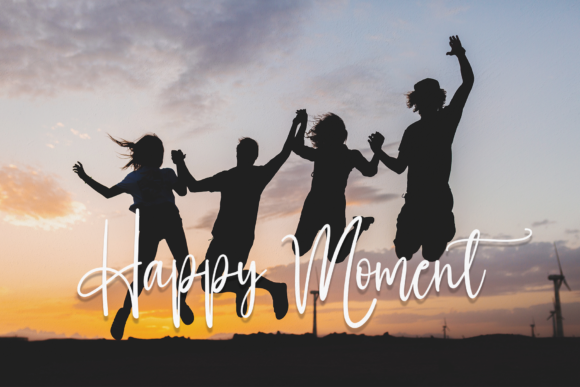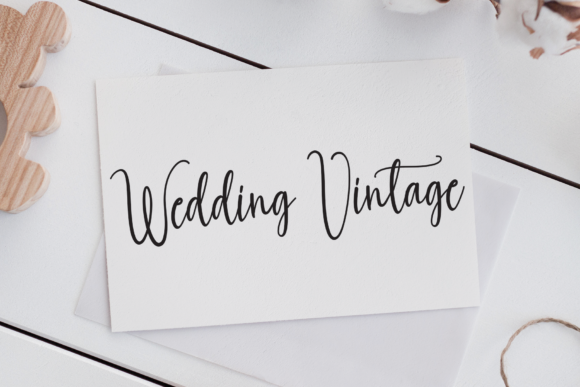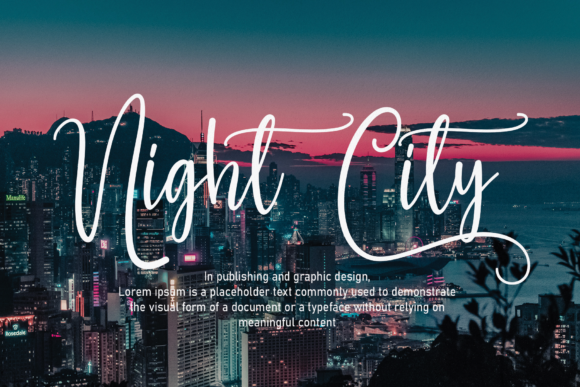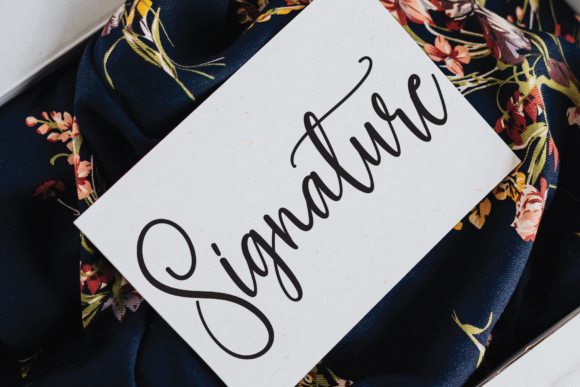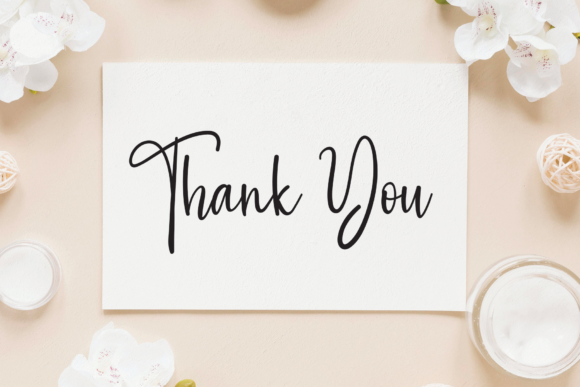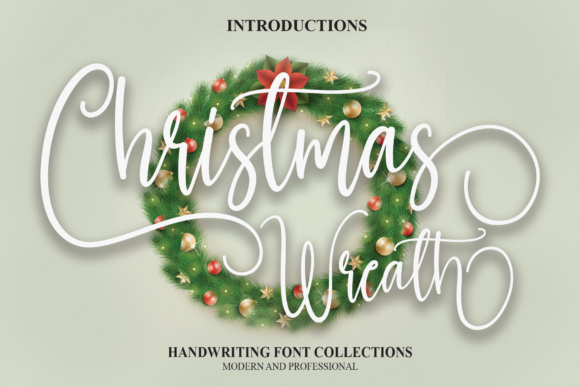
Introducing Christmas Wreath Font: The Perfect Addition to Your Holiday Designs
As the holiday season approaches, designers and crafters are on the lookout for the perfect typography to add a touch of elegance and sophistication to their Christmas-themed projects. If you’re searching for a font that embodies the spirit of the season, look no further than Christmas Wreath Font. This beautiful, modern handwritten font is perfect for a wide range of applications, from wall displays and wedding invitations to social media posts and product packaging.
What is Christmas Wreath Font?
Christmas Wreath Font is an elegant and modern handwritten font that is sure to add a touch of festive flair to any project. With its flowing lines and delicate curves, this font is reminiscent of traditional Christmas wreaths, making it the perfect choice for holiday-themed designs. Whether you’re creating a festive wall display, a wedding invitation, or a social media post, Christmas Wreath Font is sure to make your project stand out.
Key Features of Christmas Wreath Font
- Elegant and Modern Design: Christmas Wreath Font boasts a sleek and sophisticated design that is perfect for a wide range of applications.
- Handwritten Style: The font’s handwritten style gives it a personal and unique touch, making it perfect for projects that require a more human feel.
- Festive Flair: The font’s Christmas-themed design makes it perfect for holiday-themed projects, from Christmas cards to winter wedding invitations.
- Highly Versatile: Christmas Wreath Font is perfect for a wide range of applications, including wall displays, wedding invitations, social media posts, logos, advertisements, product packaging, and more.
Uses for Christmas Wreath Font
Christmas Wreath Font is a highly versatile font that can be used for a wide range of applications, including:
- Wall Displays: Create stunning wall displays with Christmas Wreath Font, perfect for holiday decorations or special events.
- Wedding Invitations: Add a touch of elegance and sophistication to your winter wedding invitations with Christmas Wreath Font.
- Social Media Posts: Create eye-catching social media posts with Christmas Wreath Font, perfect for holiday promotions or seasonal greetings.
- Logos and Branding: Use Christmas Wreath Font to create unique and memorable logos and branding for your holiday-themed business or product.
- Advertisements: Create festive and eye-catching advertisements with Christmas Wreath Font, perfect for holiday promotions or sales.
- Product Packaging: Add a touch of elegance and sophistication to your product packaging with Christmas Wreath Font, perfect for holiday-themed products.
- Labels and Watermarks: Use Christmas Wreath Font to create beautiful labels and watermarks for your products or photography.
Tips for Using Christmas Wreath Font
To get the most out of Christmas Wreath Font, here are a few tips to keep in mind:
- Experiment with Sizes and Colors: Don’t be afraid to experiment with different sizes and colors to find the perfect combination for your project.
- Pair with Other Fonts: Christmas Wreath Font pairs well with other fonts, so don’t be afraid to experiment with different combinations to find the perfect look for your project.
- Use for Headlines and Titles: Christmas Wreath Font is perfect for headlines and titles, so use it to add a touch of elegance and sophistication to your project.
Christmas Wreath Font is a beautiful and versatile font that is perfect for a wide range of applications. With its elegant and modern design, festive flair, and highly versatile nature, this font is sure to become a go-to choice for designers and crafters looking to add a touch of sophistication and elegance to their holiday-themed projects. Whether you’re creating a festive wall display, a wedding invitation, or a social media post, Christmas Wreath Font is sure to make your project stand out.